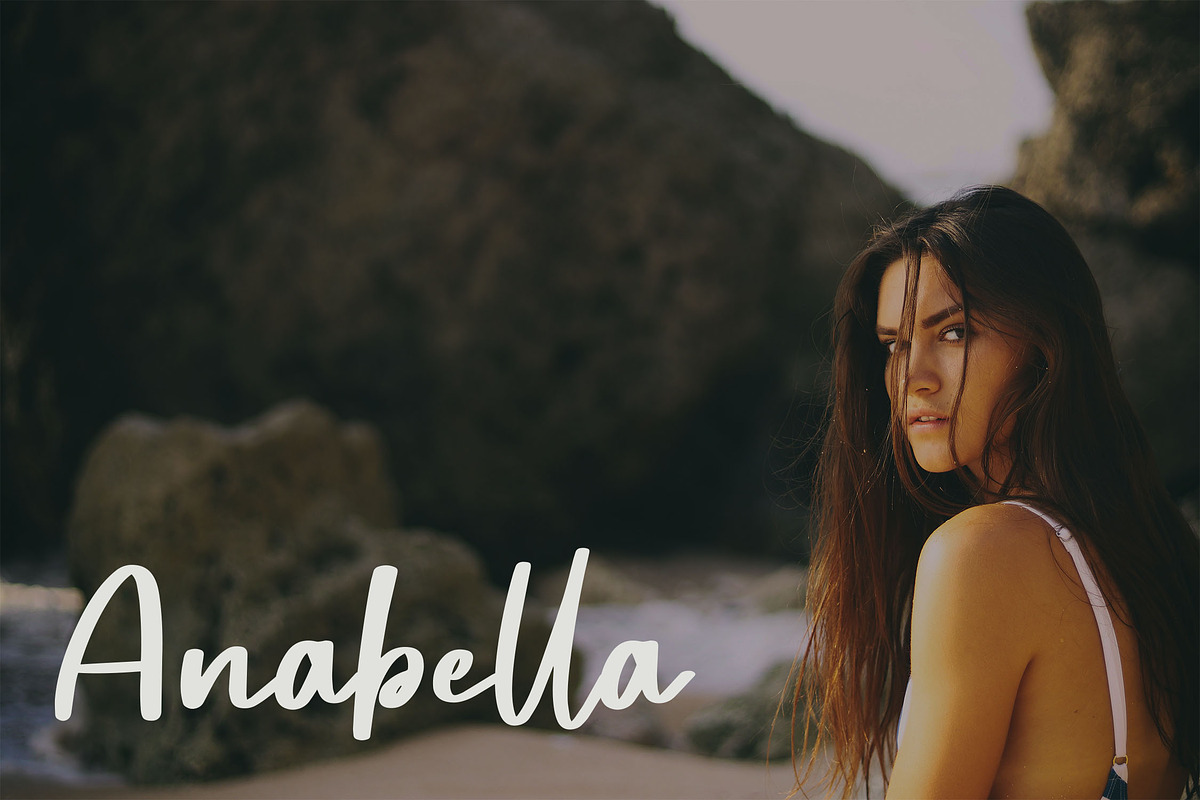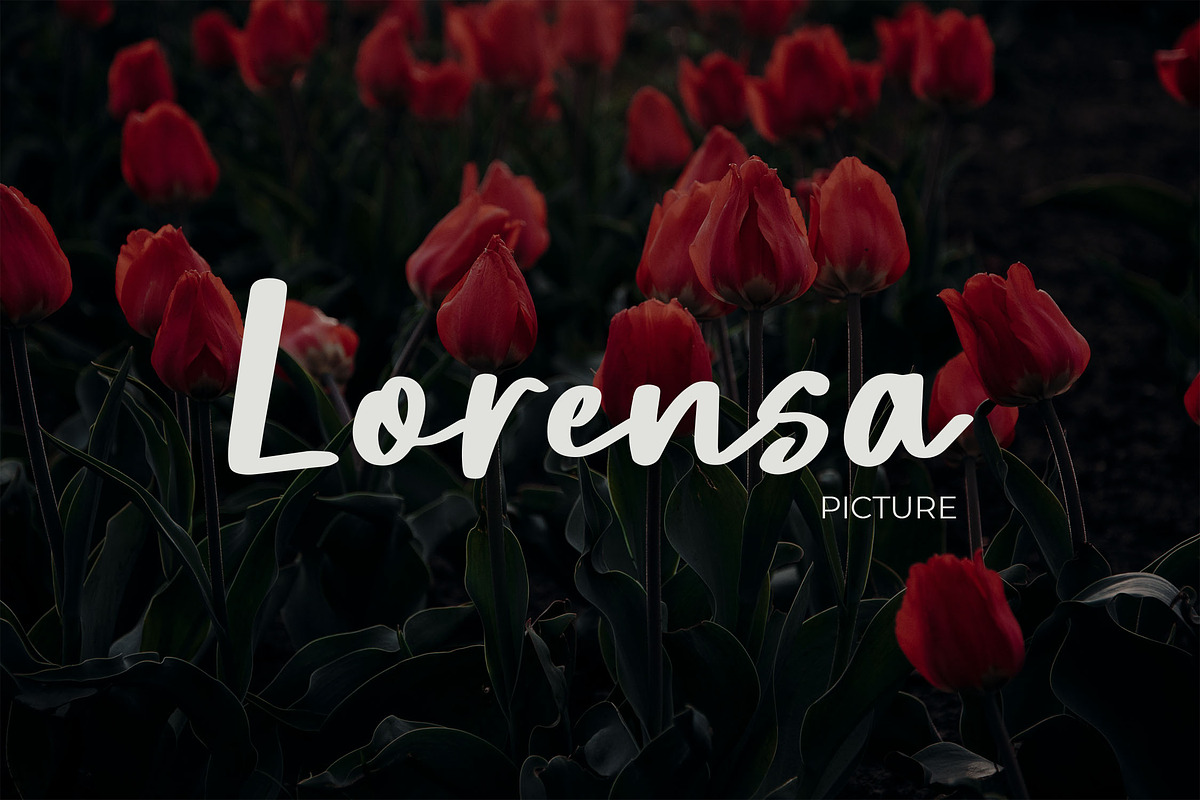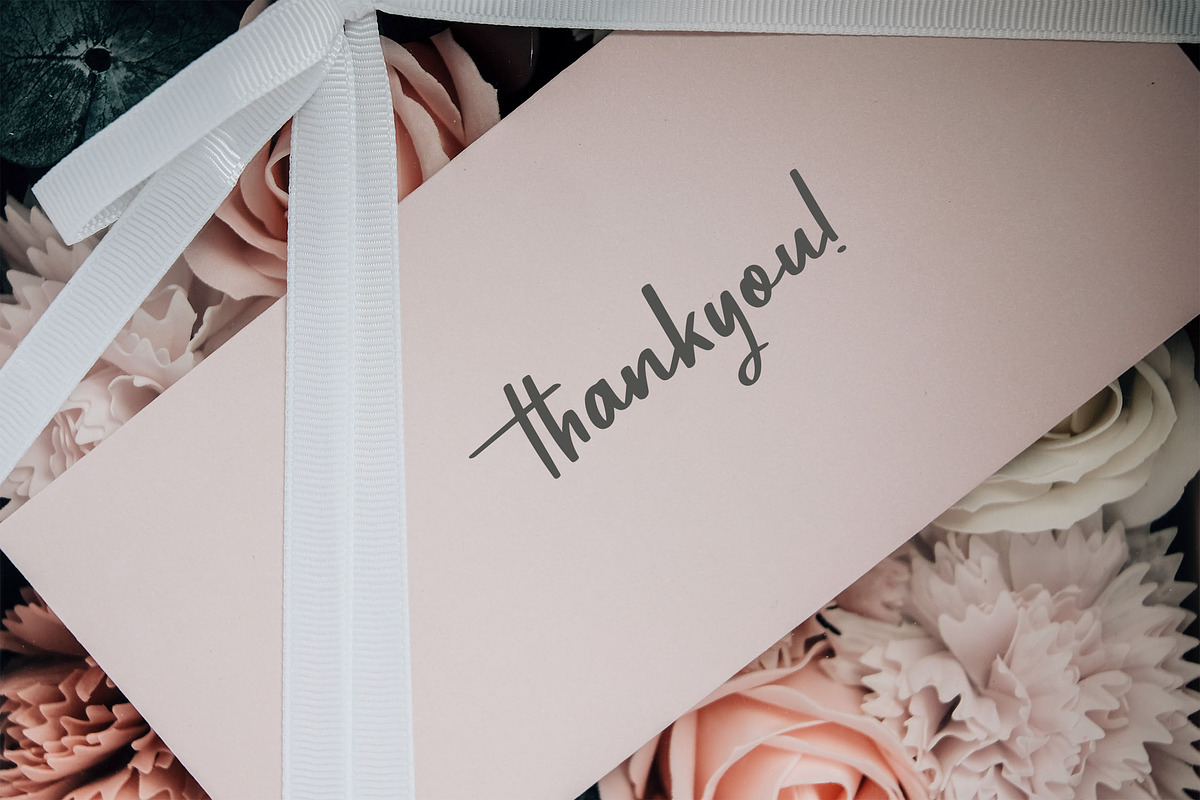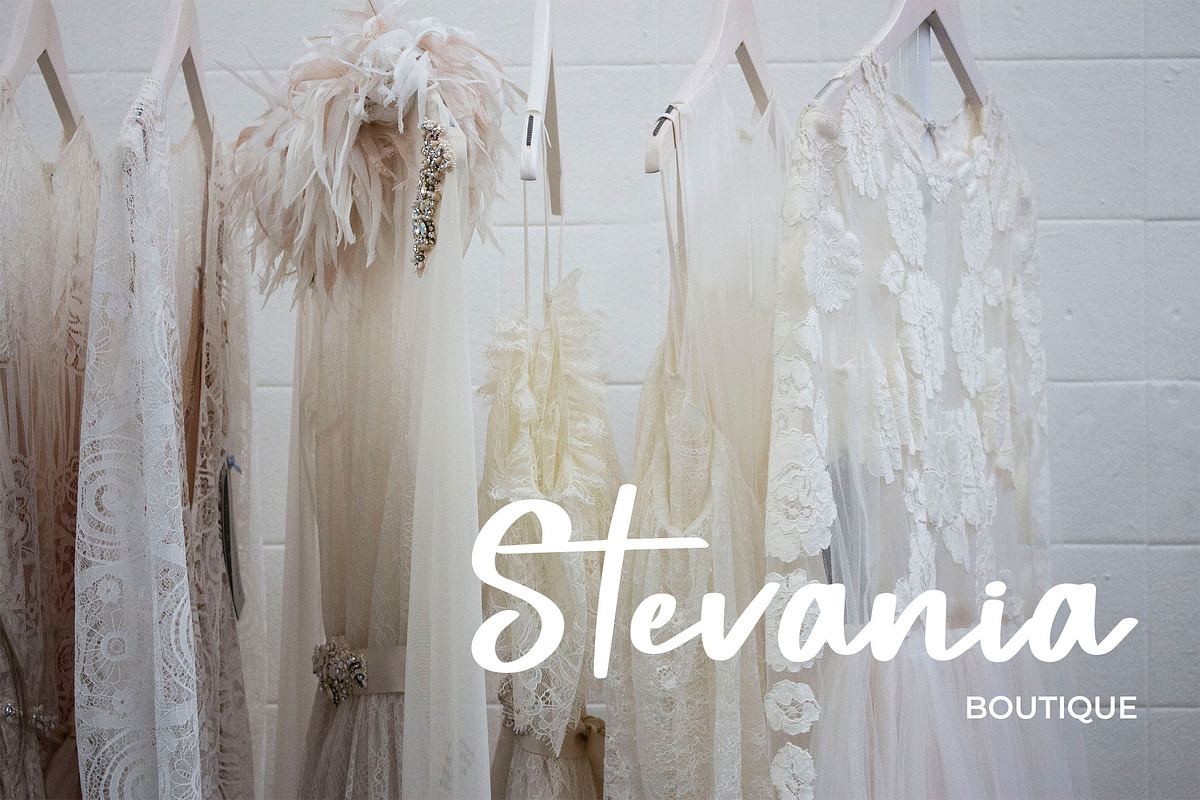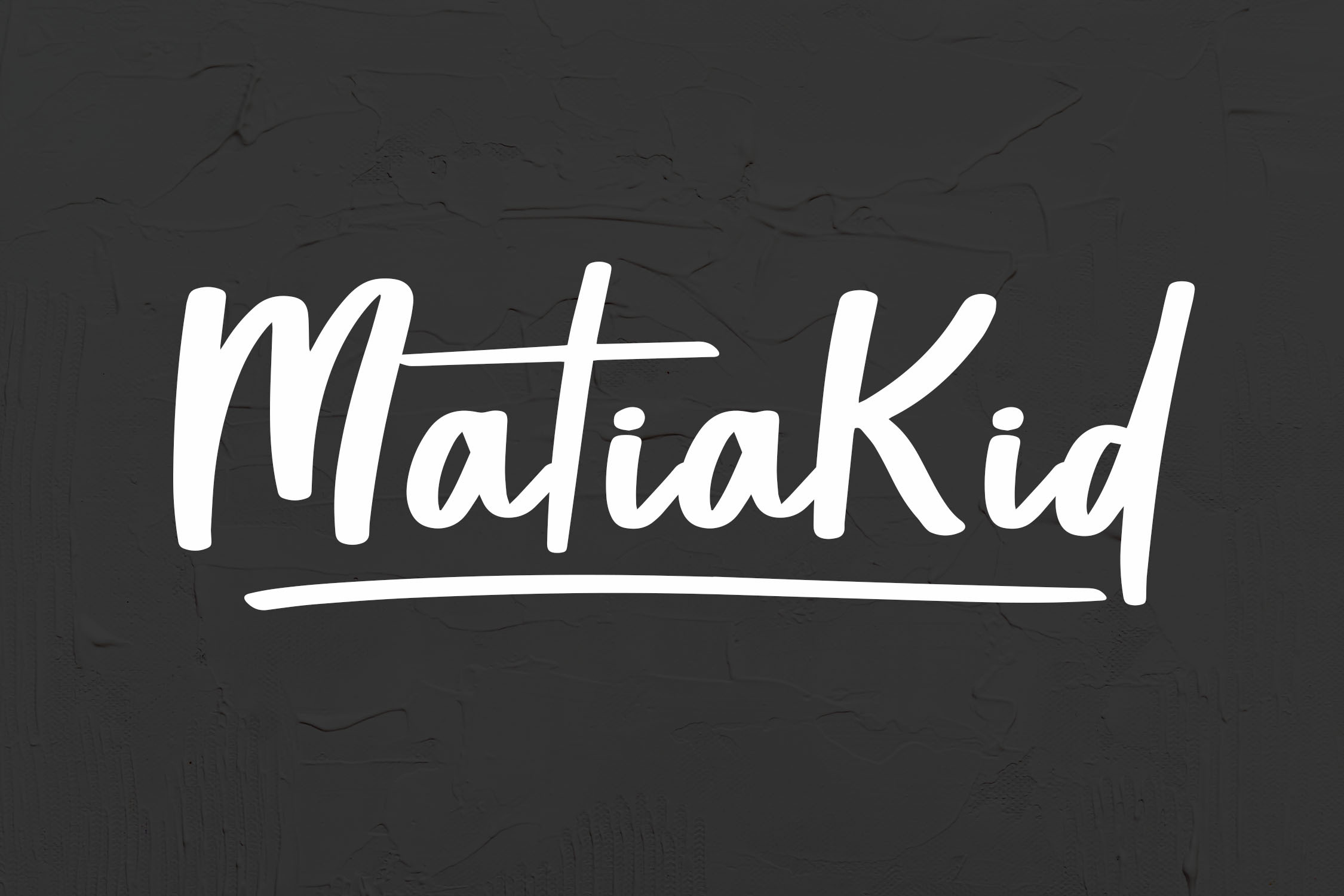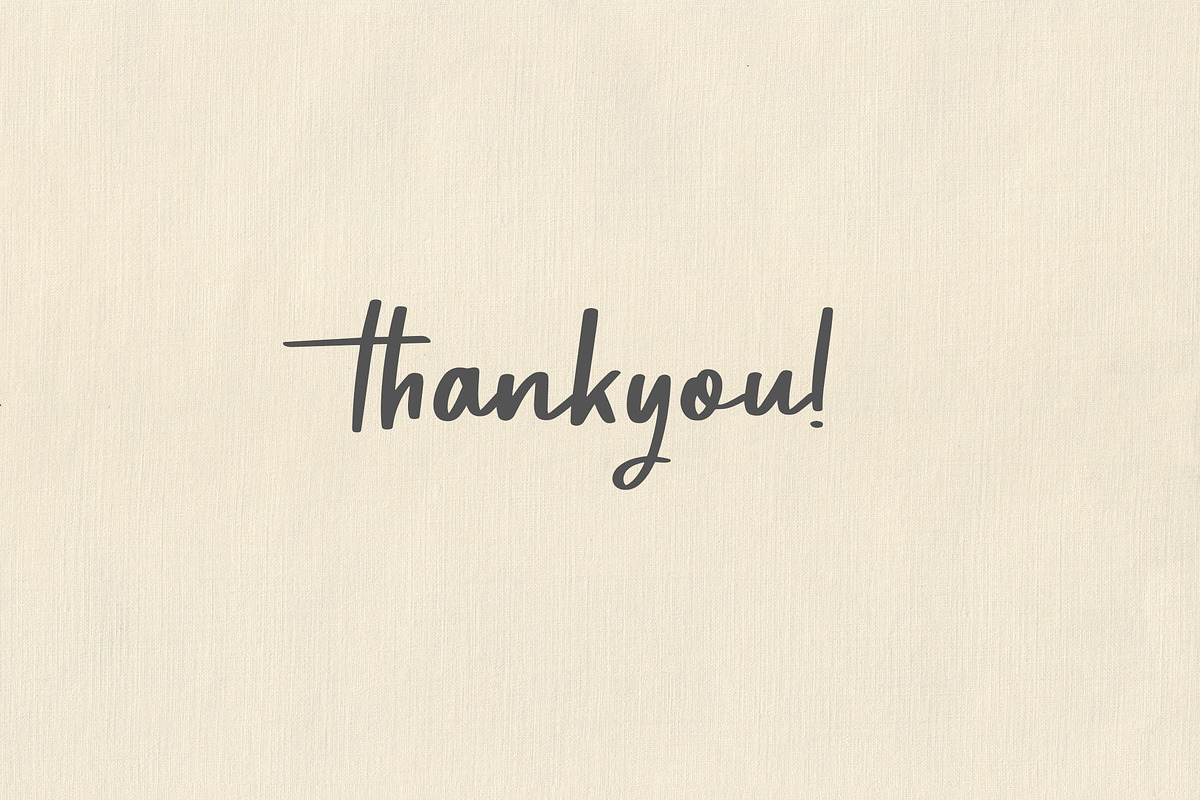
MatiaKid Handwriting Brush Font
MatiaKid - Hand Brush Style Handwriting Font
MatiaKid is a vibrant handwriting font featuring a dynamic hand brush style. Designed with unique, expressive letterforms, it adds an authentic and creative touch to your designs. Perfect for enhancing product visuals, MatiaKid brings a bold, artistic feel to branding, packaging, social media content, and more.
- Ligatures for smooth, natural letter connections
- Stylistic alternates for creative customization
- Swashes to add flair to your typography
- Multilingual support for a wide range of languages